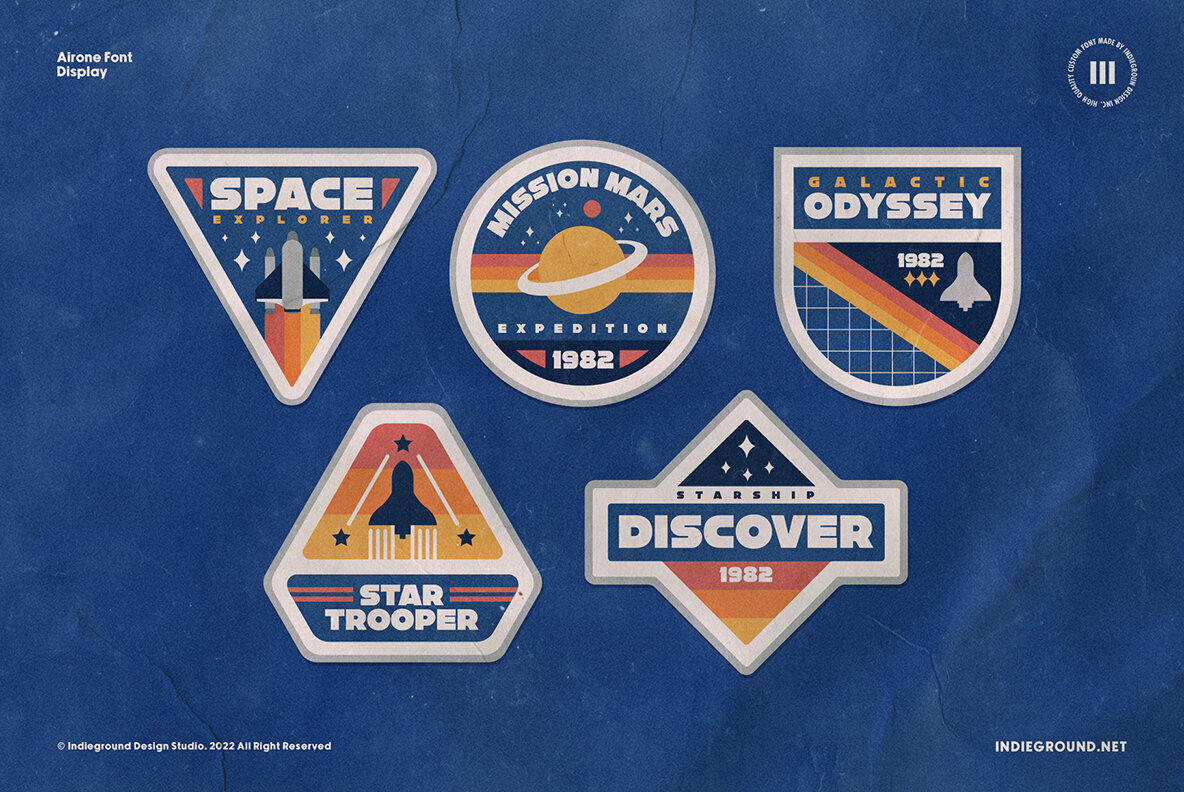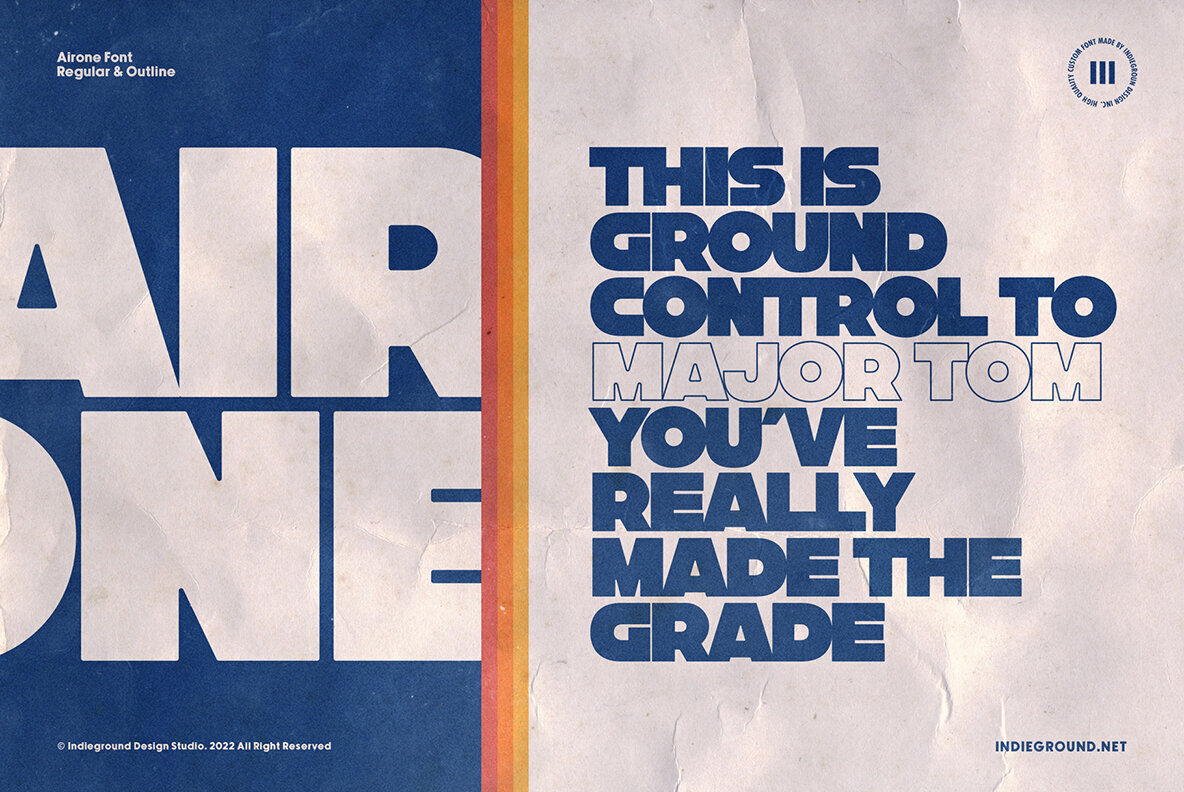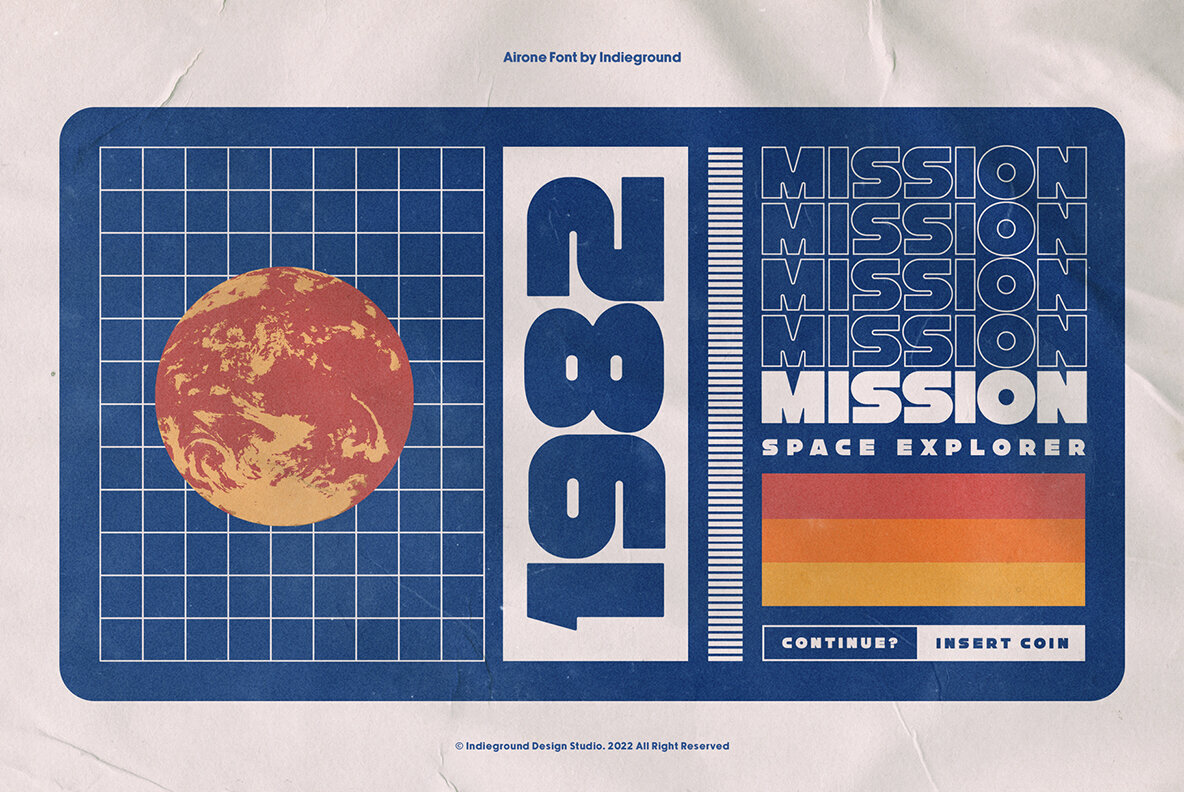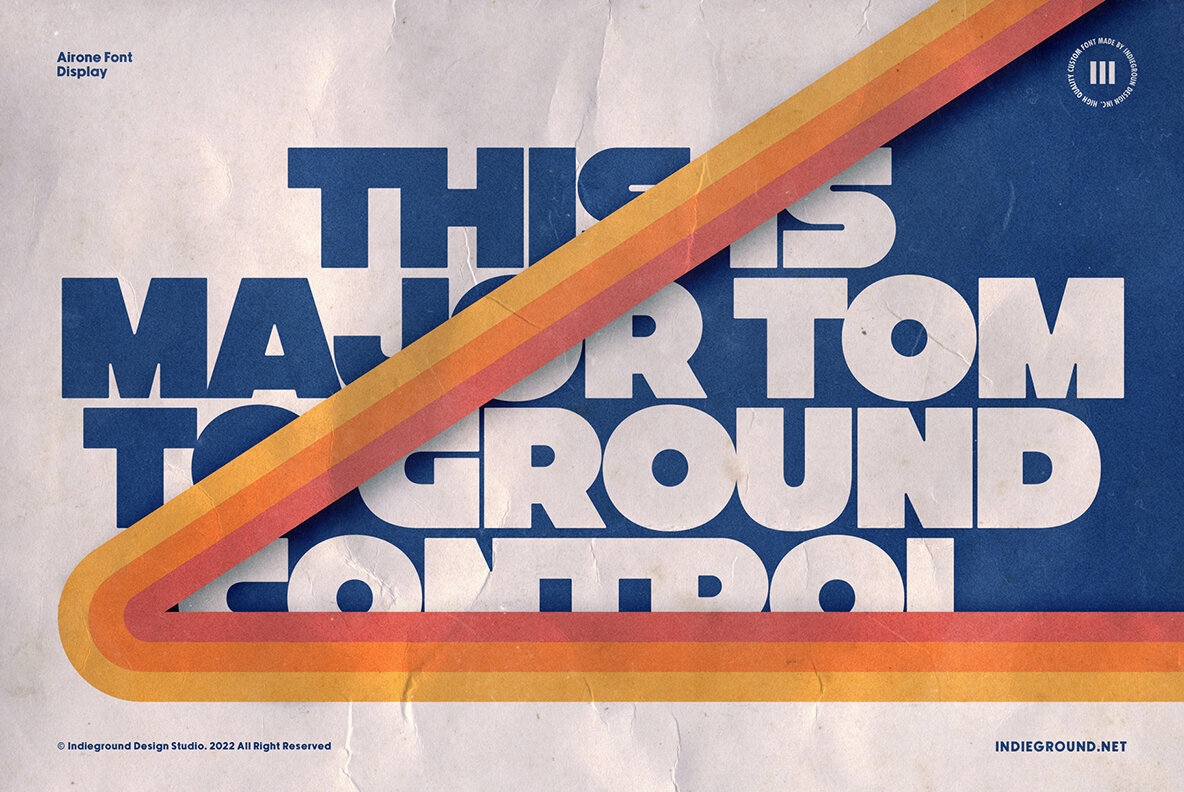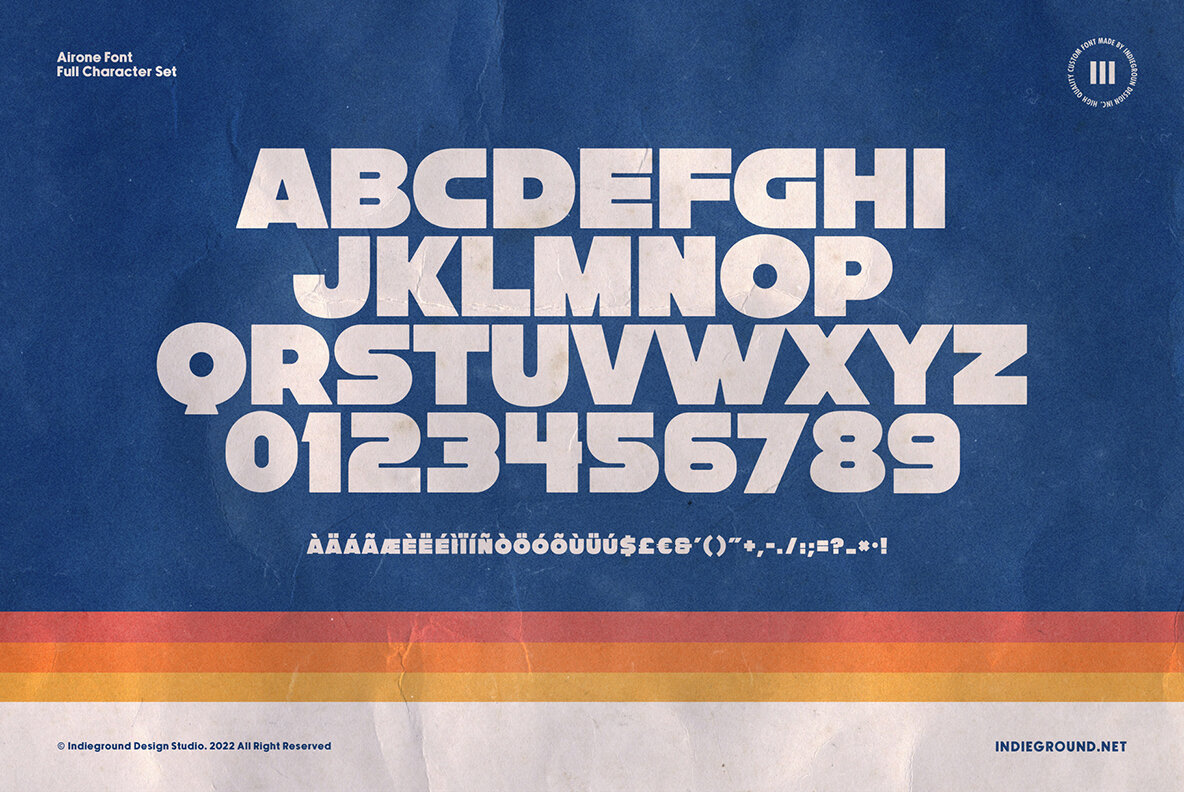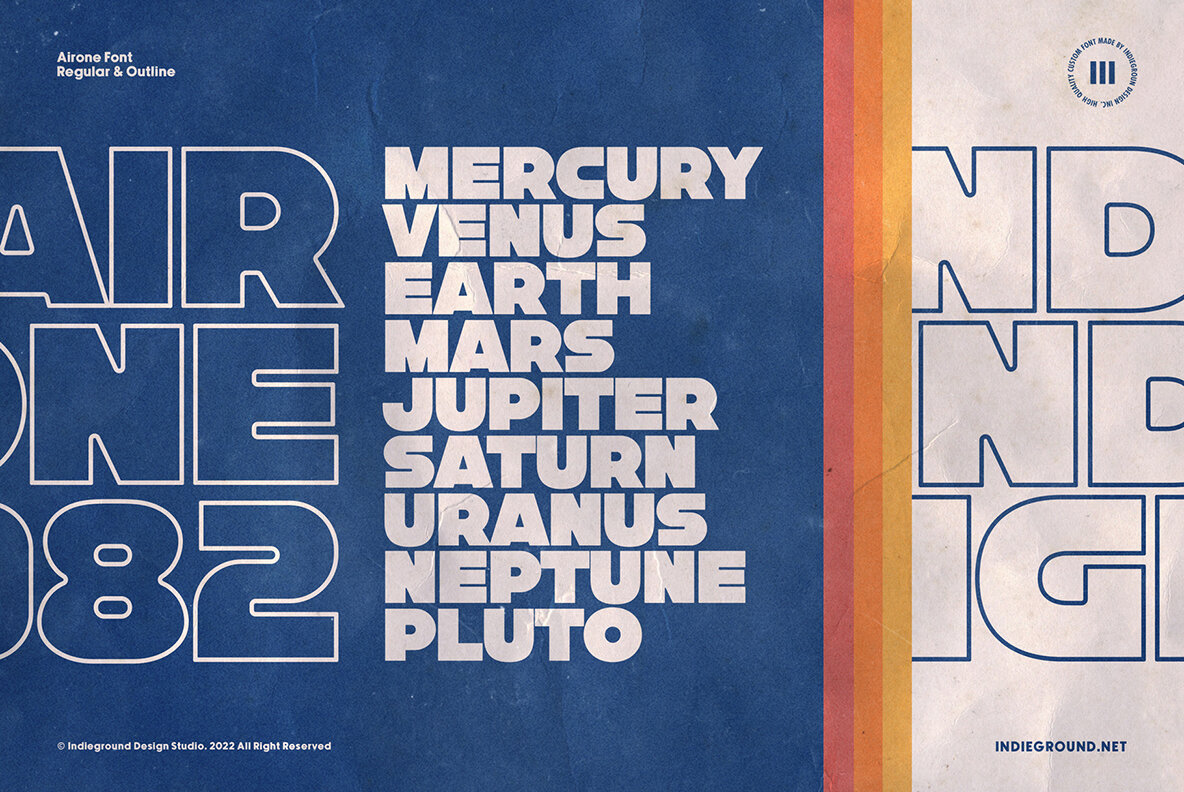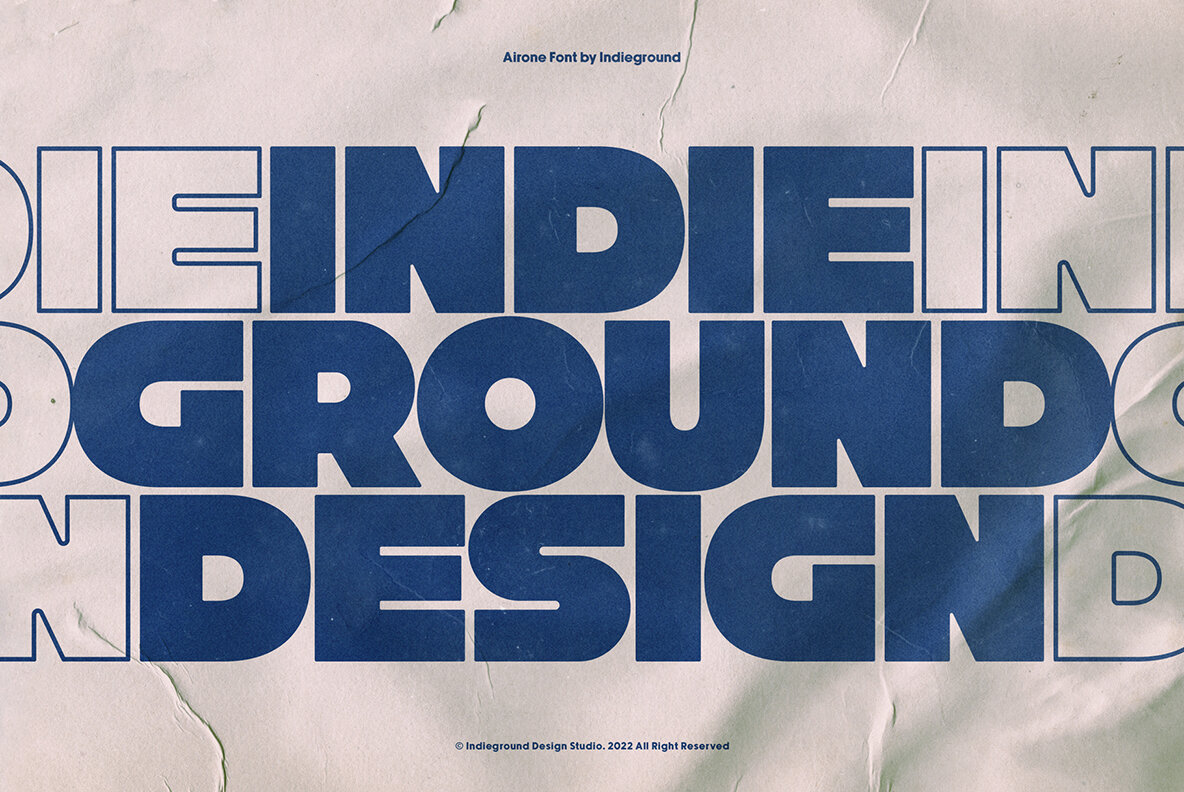
Airone Font
This extra-bold display font made by the Indieground Team is perfect for your heavy titles and headlines. This typeface adds a bold and iconic style to your artworks, both retro and modern. It’s perfect for any graphic design or typography project that requires a solid mood. A font with a big fat personality that will make all your artistic creations come alive with style and weight. This regular version includes the full characters set and also the outlined version shown in the preview.